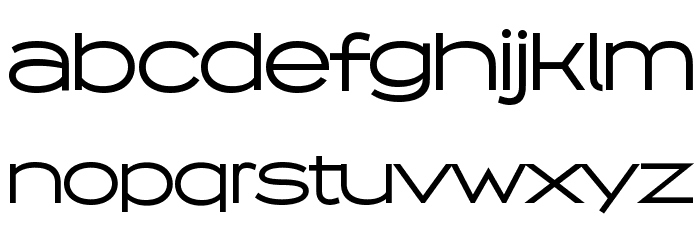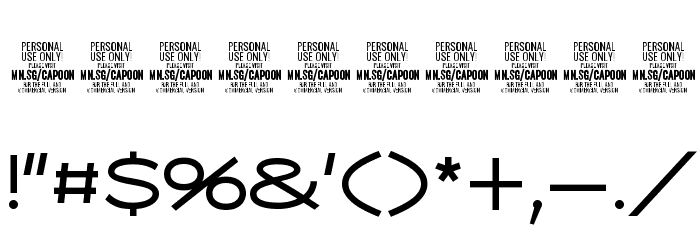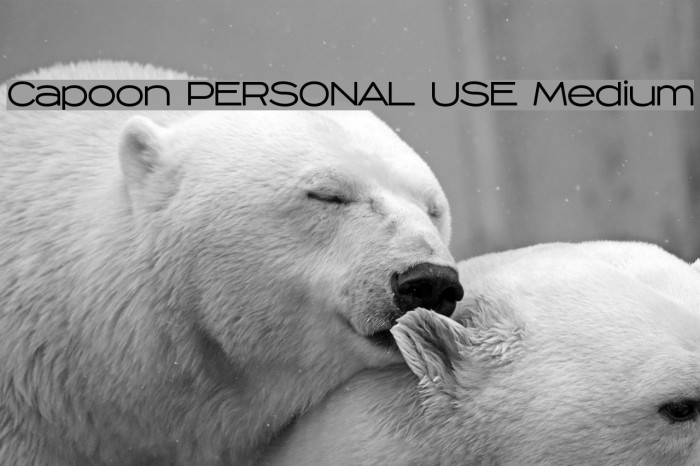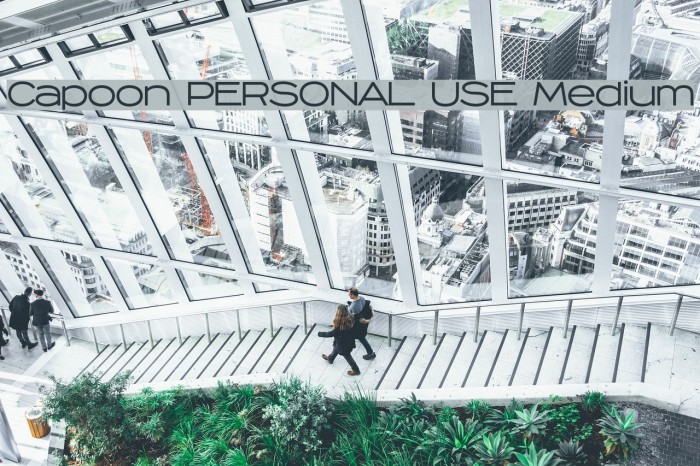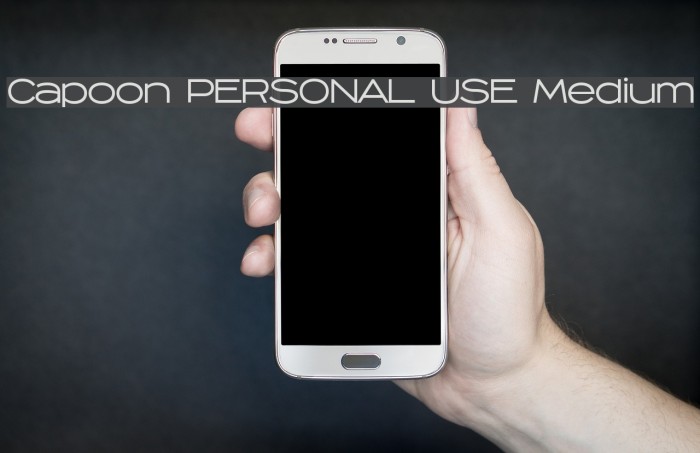
Capoon PERSONAL USE Medium Font
This font features a modern and geometric design with clean, straight lines and a uniform stroke width. The uppercase letters are bold and assertive, while the lowercase letters maintain a consistent style, offering a harmonious balance. The numerals are clear and easy to read, making them suitable for various applications. Special characters are included, enhancing its versatility. The overall appearance is sleek and contemporary, making it ideal for projects that require a modern touch.
A modern, geometric font with clean lines and uniform stroke width.
- Proposed Projects: Ideal for branding, advertising, digital media, and modern web design.
- Use Case: Headlines, Logos, Digital Media